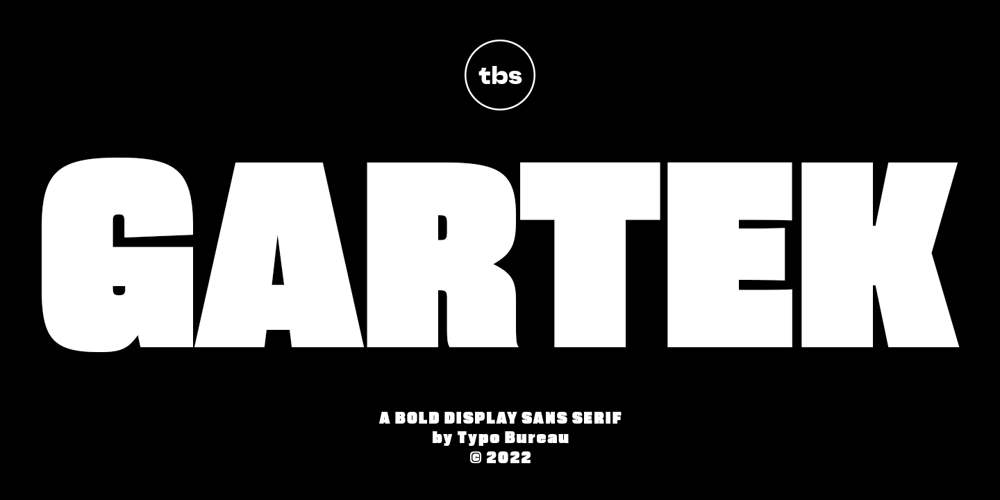
TBS Gartek Font Family was designed by Tubagus Iqbal T and published by TypoBureau Studio. TBS Gartek contains 1 styles and family package options. Meet the new Strong and Bold typeface from TBS.TBS GARTEK is a Display typeface It has a single weight ultra bold It come with multilingual glyphs. Good amount at Large Point sizes with combine with any suit typefaces, Headline, Logo font.